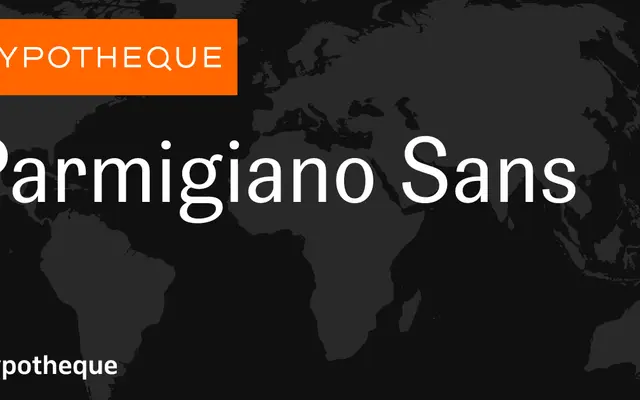
Parmigiano Sans
A humanist sans in four weights with italics, designed as a companion to the Parmigiano serif family.
Part of Typotheque's broader Parmigiano system, this sans-serif shares the Renaissance-inflected proportions of its serif counterpart. Four weights from Light to Bold each carry a matching italic, giving sufficient range for editorial hierarchies. The family appears well-suited to newspaper and long-form text settings where a restrained humanist sans is needed alongside a classical serif.
Parmigiano Sans is a sans-serif companion to the Parmigiano serif family, sharing its humanist proportions and calligraphic sensibility typical of Renaissance-influenced type design.